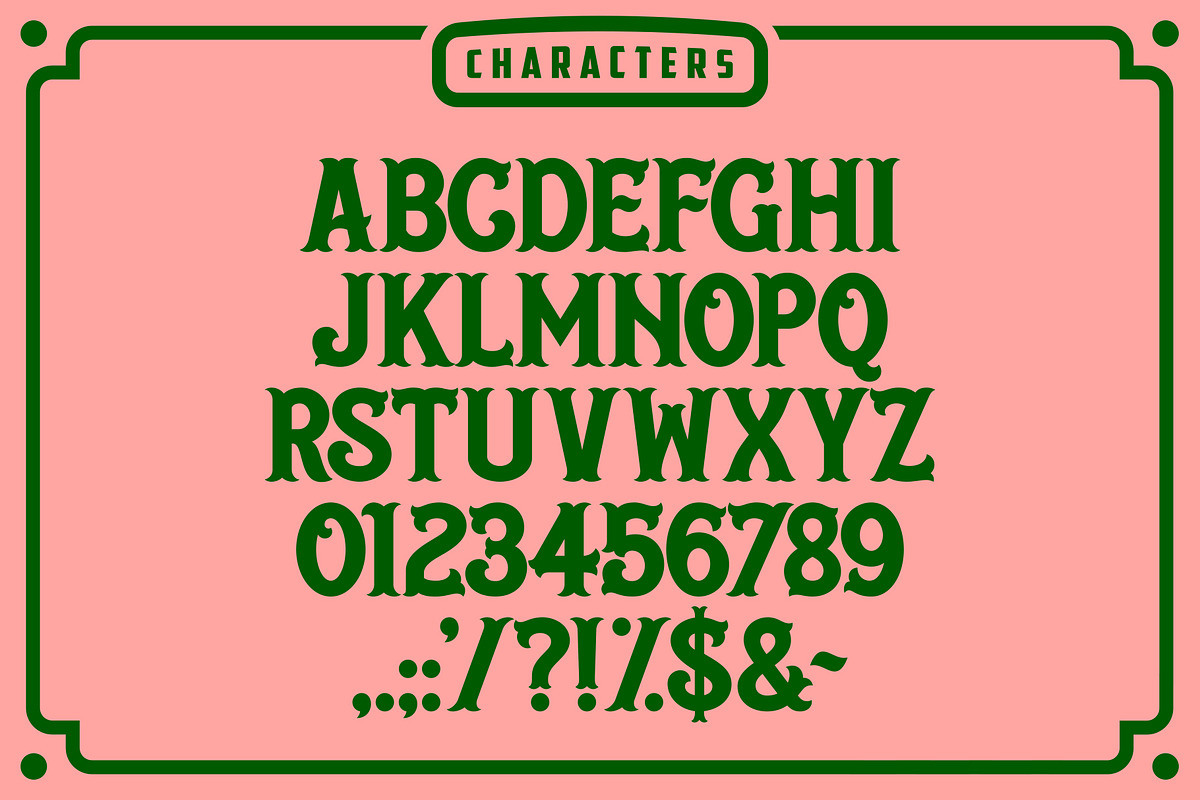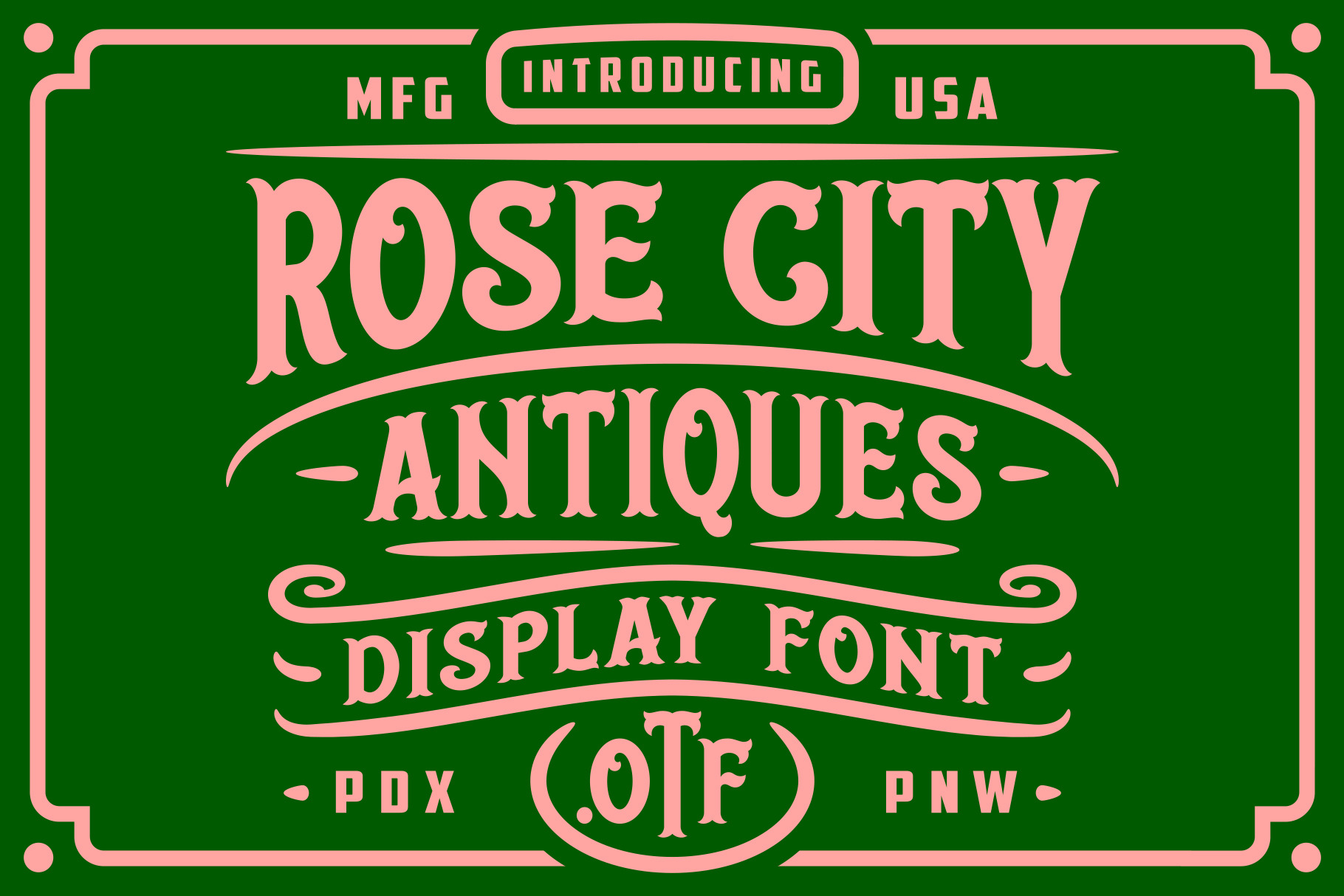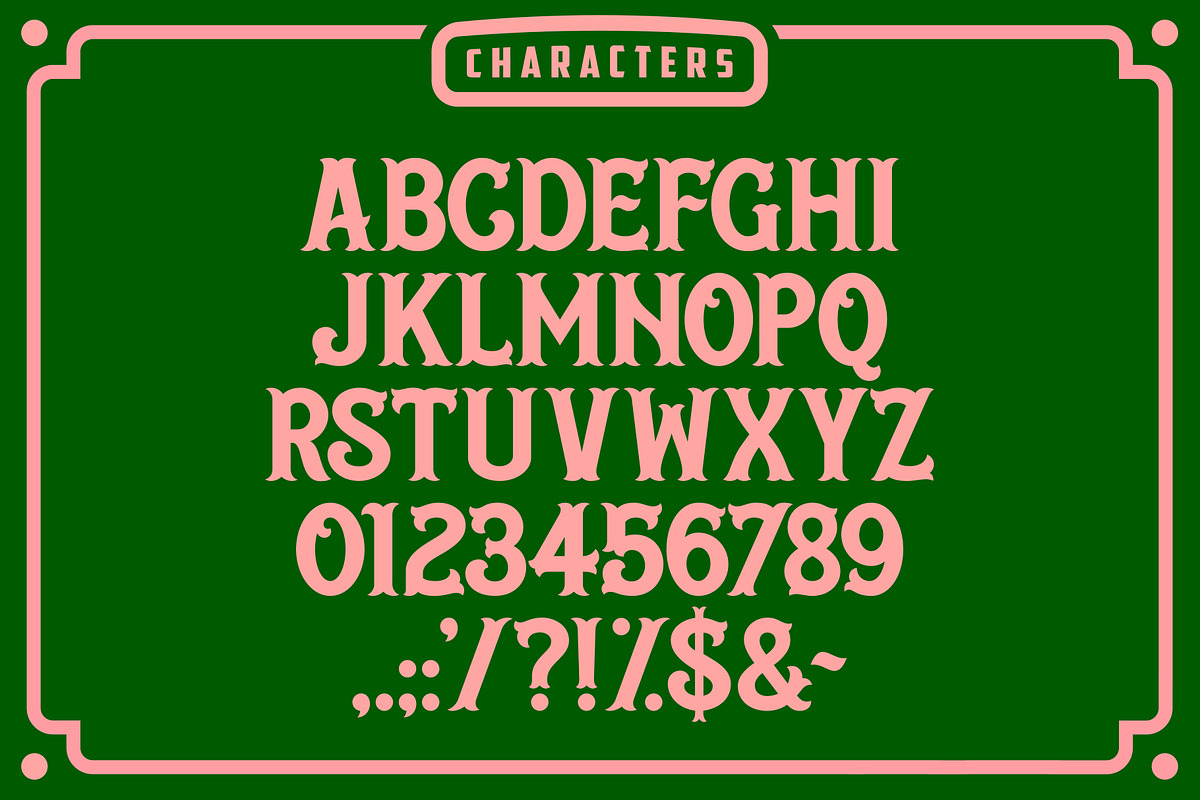
Rose City Antiques Font
Rose City Antiques is a font inspired by Vintage signs. These victorian looking letters will bring a sweet retro touch to your artworks!
This font comes with Uppercase Letters, Numbers and some punctuation.